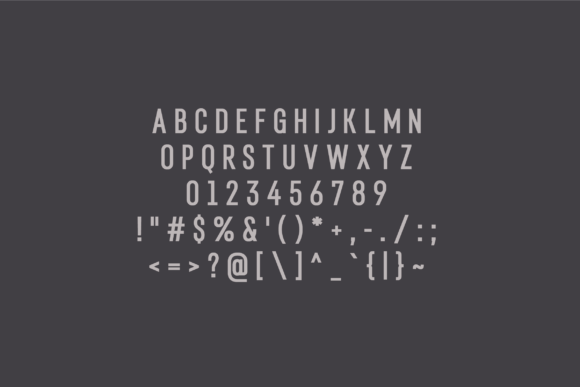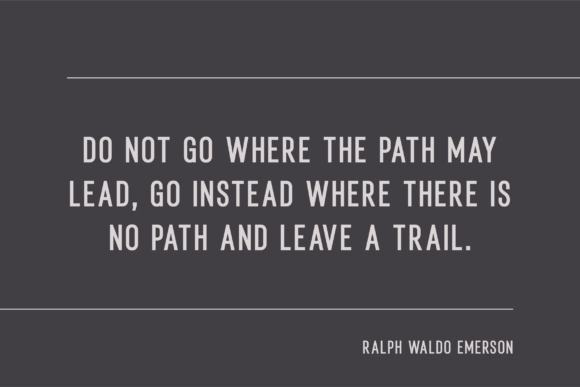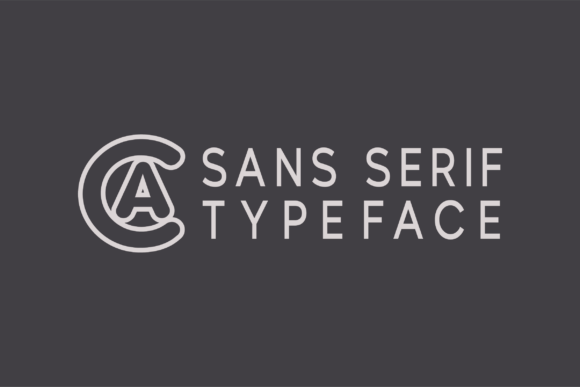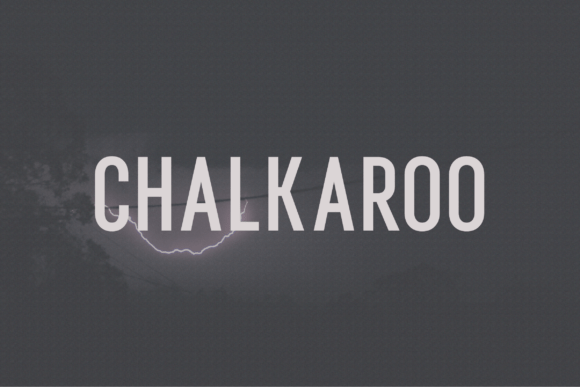
Introduction to Chalkaroo Font
Chalkaroo is a bold, modern, all caps sans-serif font designed for clean, impactful visuals.
Its perfect for logos, headlines, posters, packaging, and digital content Built for clarity and style, this typeface brings a strong, confident look to any design.
Key Features of Chalkaroo Font
Why Choose Chalkaroo Font?